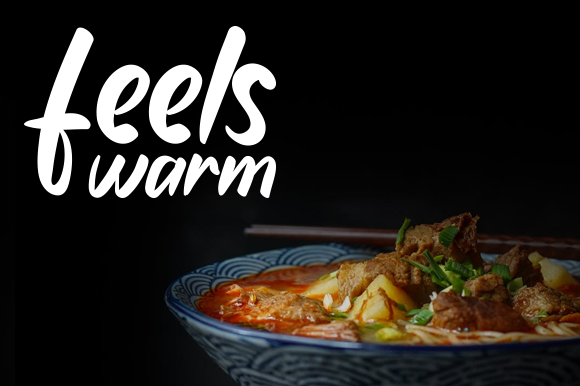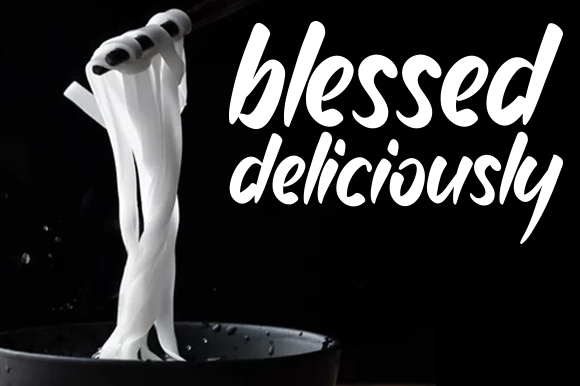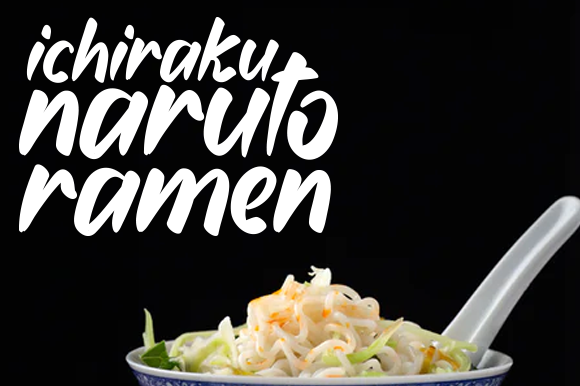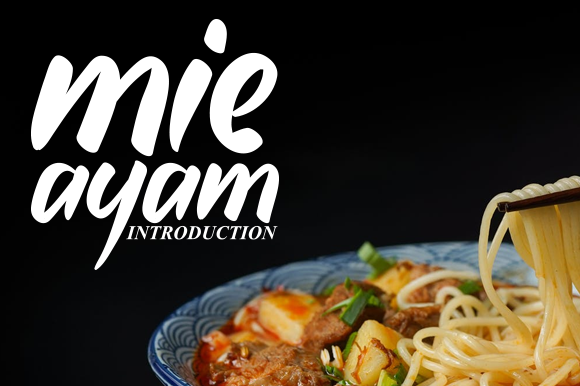
Introduction to Mie Ayam Font
Mie Ayam is a bold display font, carefully handcrafted to become a true favorite.
This enchanting font will turn any creative idea into a true standout .
Key Features of Mie Ayam Font
Why Choose Mie Ayam Font?
Mie Ayam Font offers exceptional quality and versatility, making it a valuable addition to your design toolkit. Whether you’re creating for personal projects or commercial use, Mie Ayam Font delivers professional results.